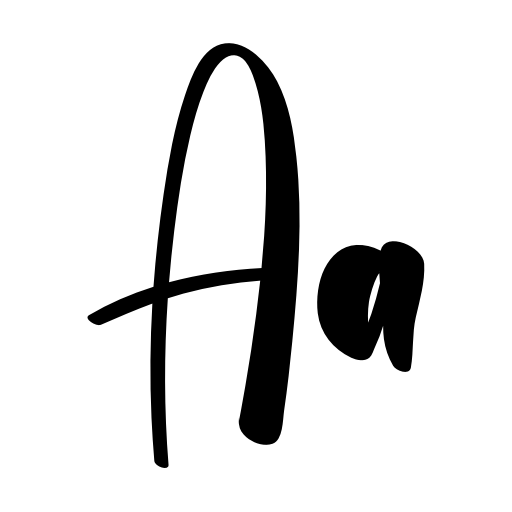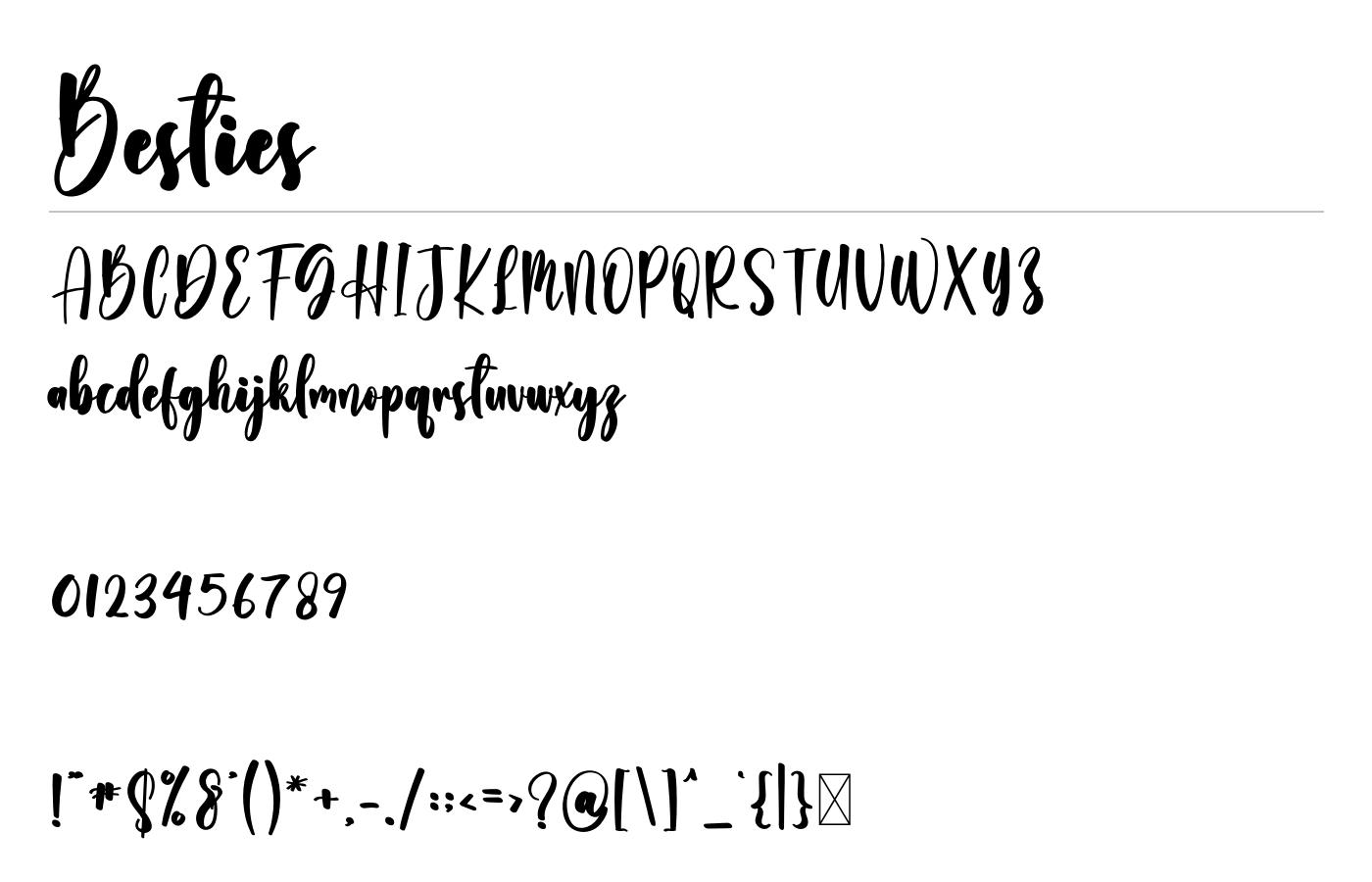
Besties Font is a playful and modern script typeface with a lively, hand-brushed look. It features a mix of bold, fluid strokes with charming, slightly quirky letterforms that bring warmth and personality to any design. This font works wonderfully for invitations, branding, and creative projects that want to evoke a friendly, approachable vibe.
Besties Font
About Besties Font